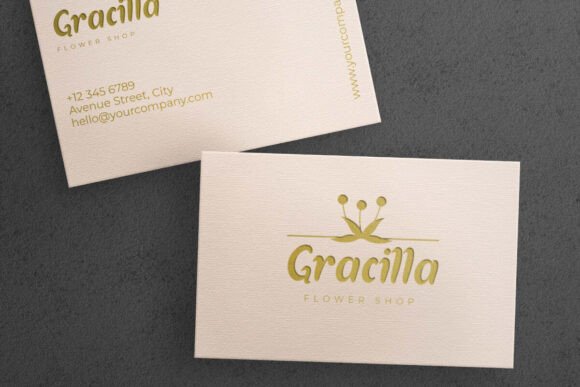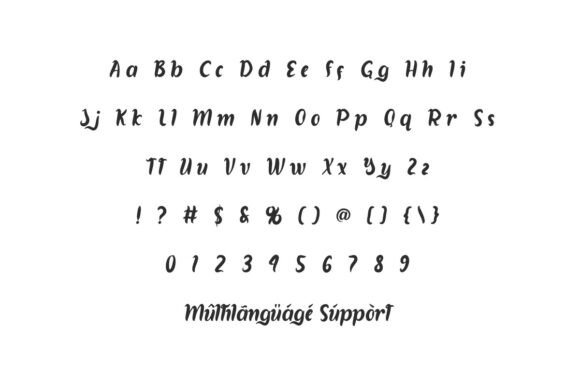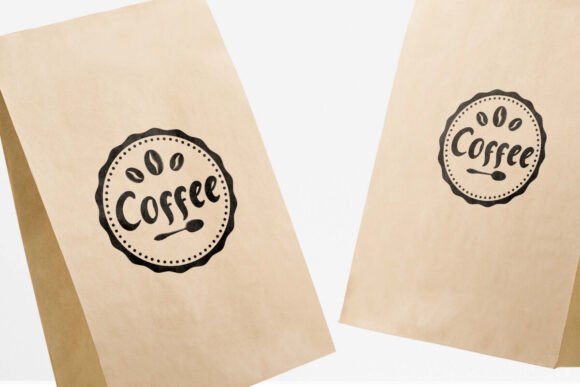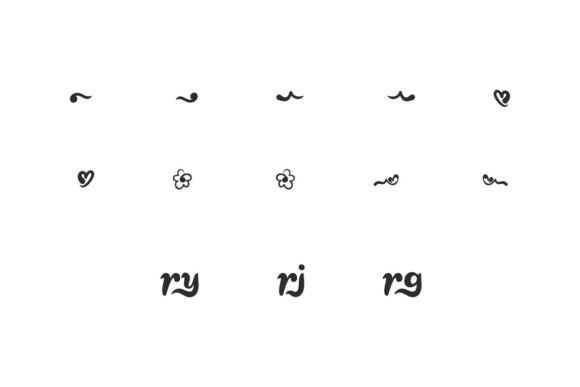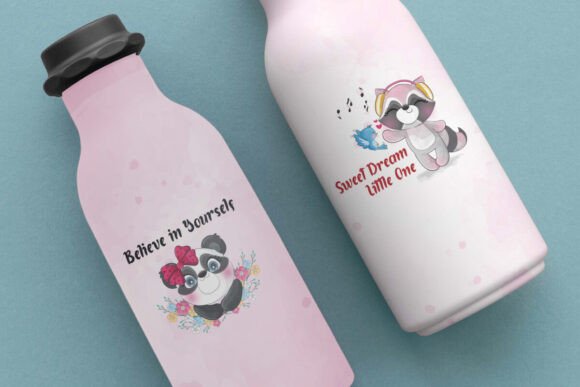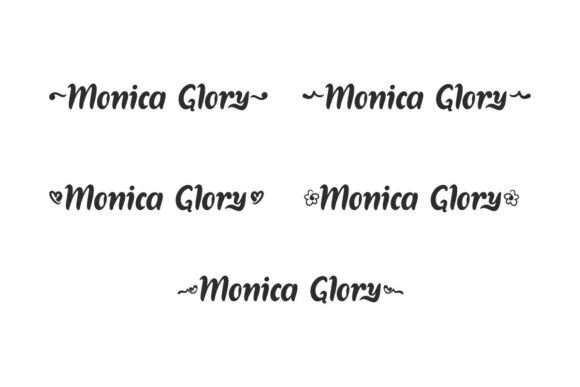
Monica Glory Font – Free Download
Introduction to Monica Glory Font
Monica Glory is an adorable lovely decorated handwriting script font.
This type font will make your designs look naturally cute and exude boundless sweetness This font will be suitable for many industries, such as advertisement, author and writer, bakery and pastry, beauty product, florist, handicrafts, homeware, printing, publishing, restaurant, and more.
Key Features of Monica Glory Font
Why Choose Monica Glory Font?
Monica Glory Font offers exceptional quality and versatility, making it a valuable addition to your design toolkit. Whether you’re creating for personal projects or commercial use, Monica Glory Font delivers professional results.